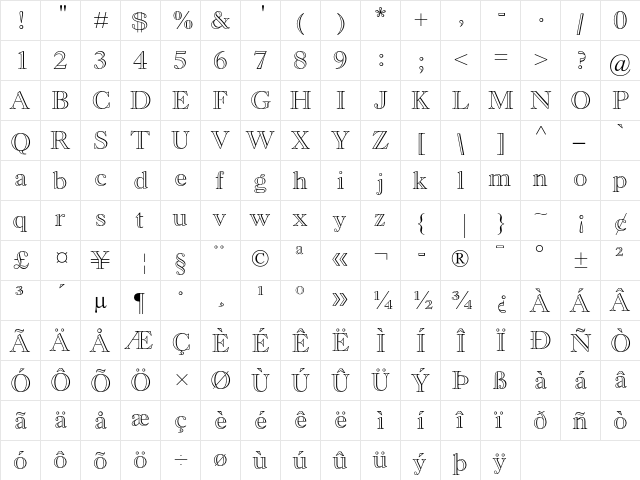
Monotype Old Style MT Bold Outline
Design Context for Monotype Old Style MT Typeface
Monotype Old Style MT is built around its visual character rather than neutral utility — its distinctive forms are designed to make an impression at display sizes. Its bold stroke weight gives it real presence on the page.
Font Pairing: Pair with a clean neutral sans-serif for body copy to let Monotype Old Style MT's character lead without overwhelming the composition.
Pro Tip: Use Monotype Old Style MT exclusively at display sizes — it was designed to be seen, not read at length. Let a neutral companion handle body copy.